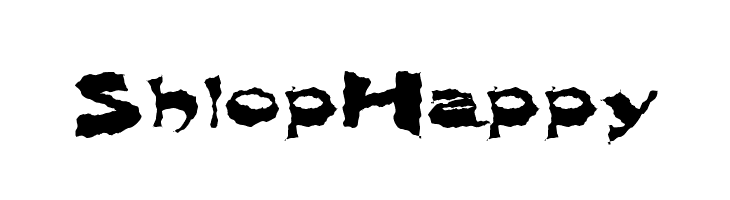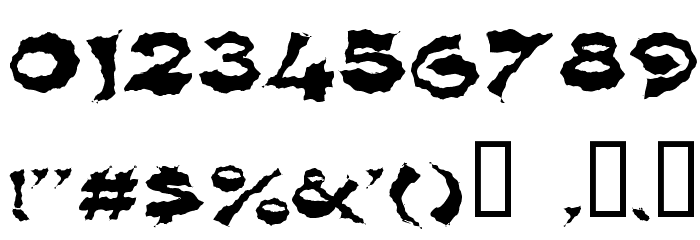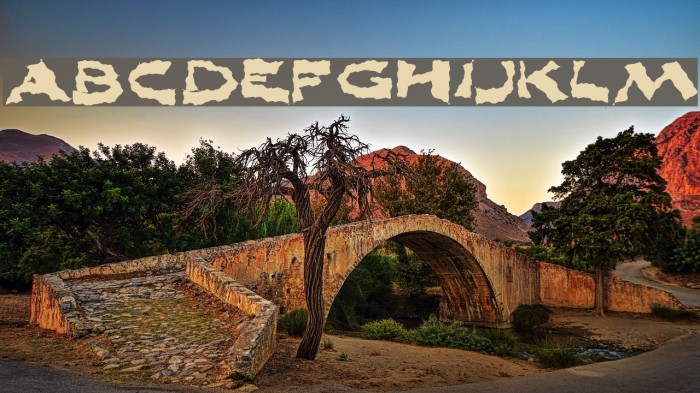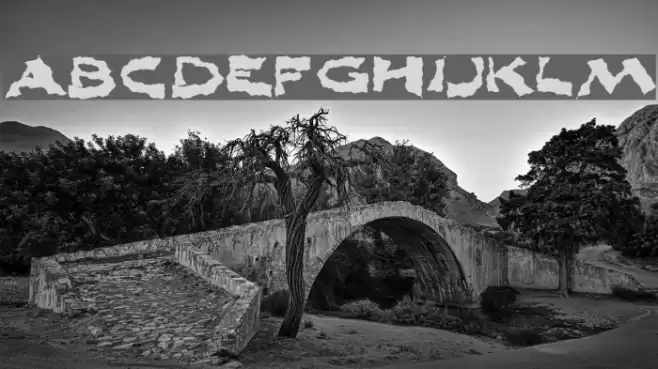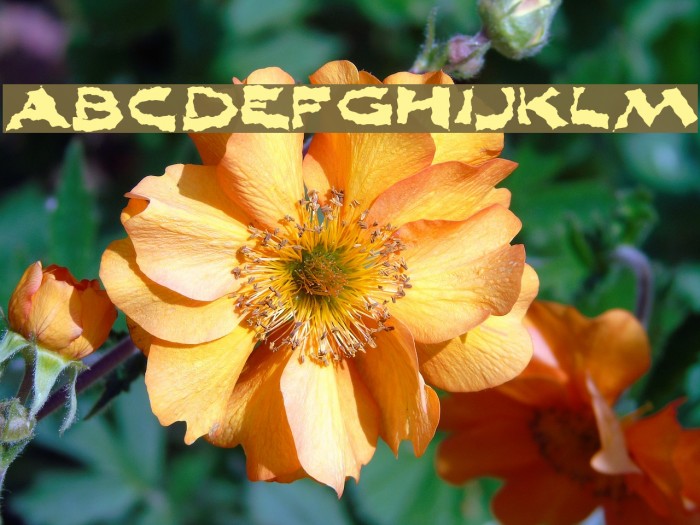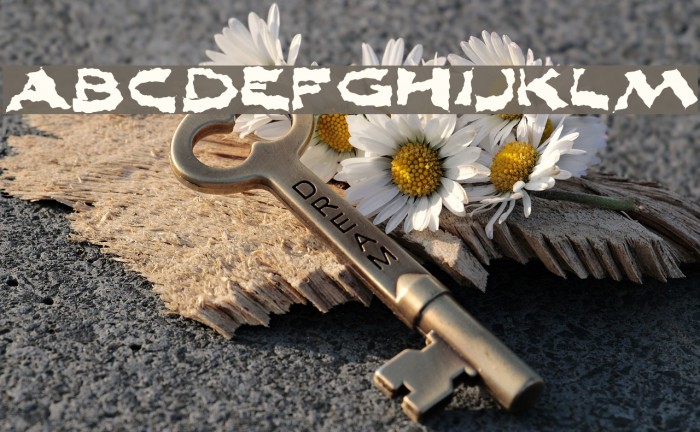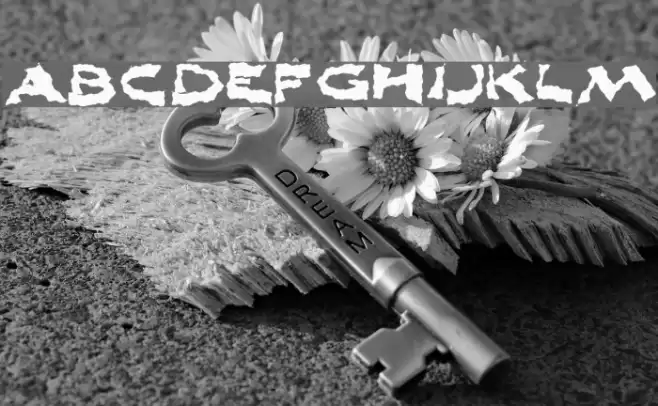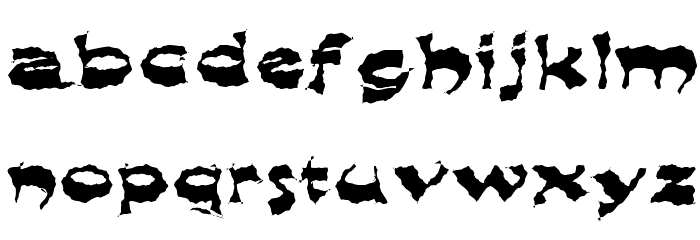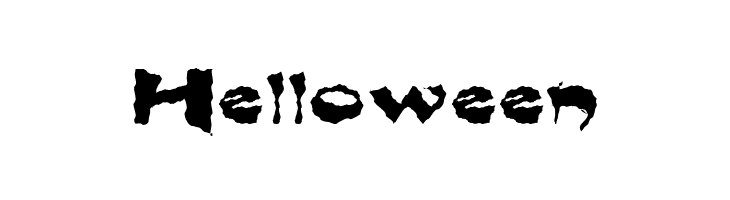
ShlopHappy Font
ShlopHappy Description
This font features a rugged, distressed appearance with jagged edges and irregular shapes, giving it a chaotic and energetic vibe. The characters appear as if they have been torn or eroded, adding a sense of movement and unpredictability. This style is particularly eye-catching and can evoke a sense of urgency or raw emotion. The uppercase and lowercase letters maintain a consistent style, while the numerals and special characters complement the overall aesthetic. The font's unique design makes it stand out, making it suitable for projects that require a bold and unconventional look.
| Proposed Projects | Ideal for horror-themed posters, edgy album covers, or rebellious branding materials. |